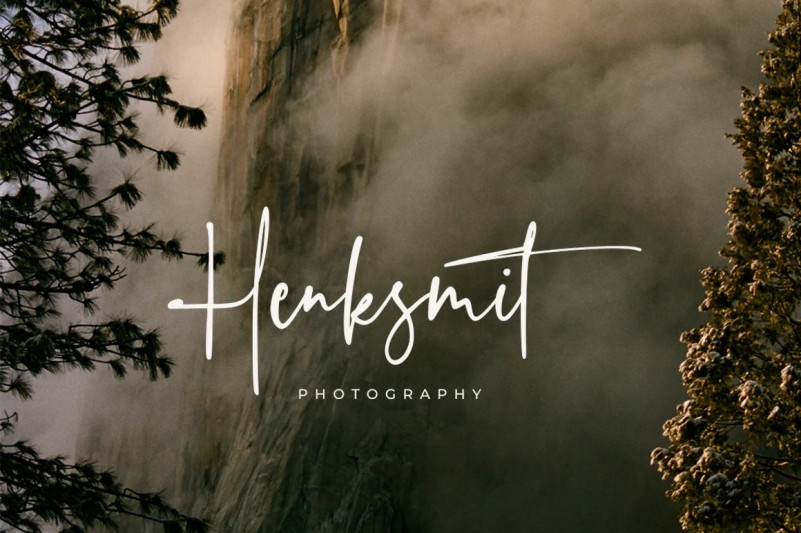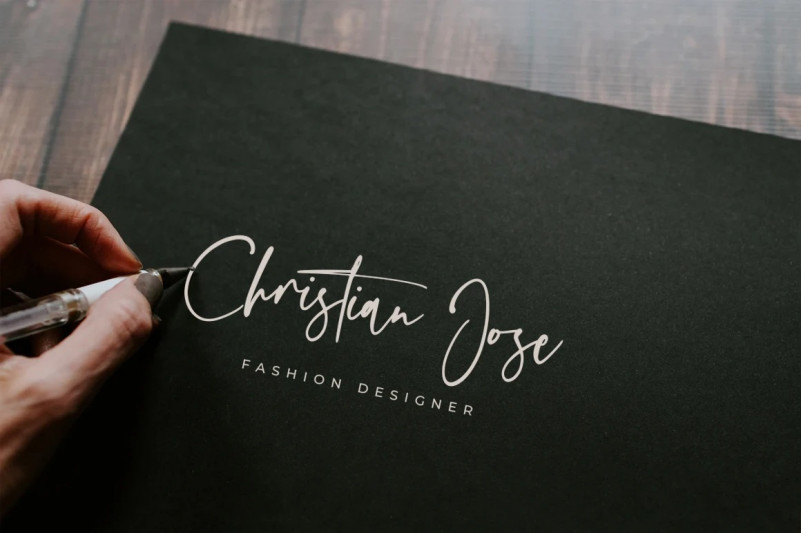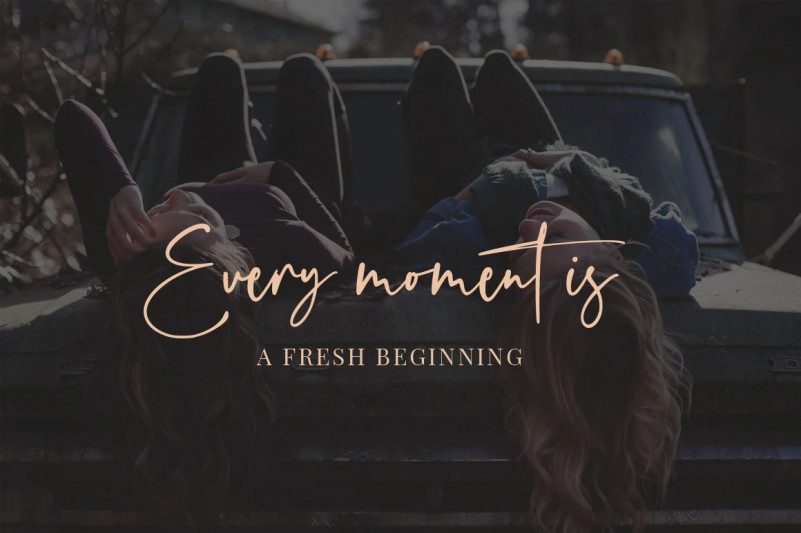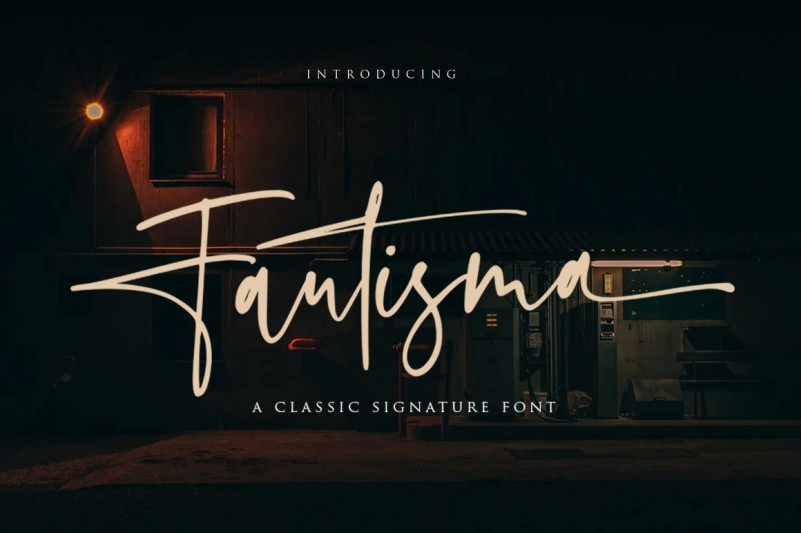
Fautisma Font
Fautisma Handwritten Font
This is a hand-drawn script typeface created by Vultype Co. with clean stroke and fun character. It has Opentype features of ligatures, To give you an extra creative work. Whether you’re looking for fonts for Instagram or calligraphy scripts for DIY projects, this font will turn any creative idea into a true piece of art!